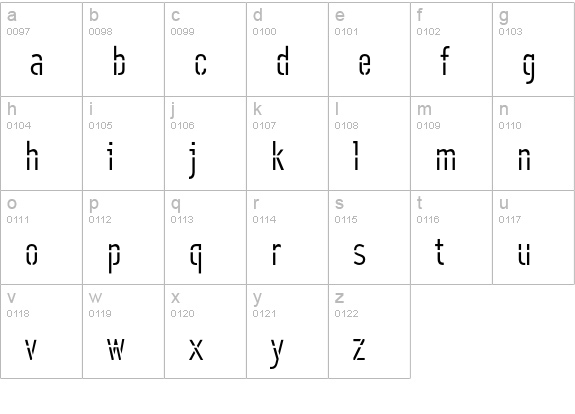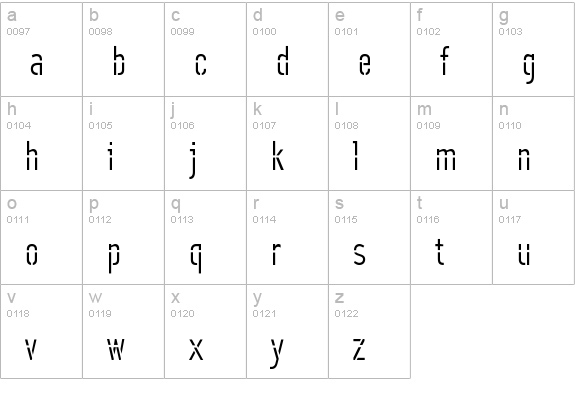
Offline-Light is a refined, elegant variant in the Offline typeface family \xE2\x80\x94 well suited to elegant body text, refined sub-headings, and luxury branding.
Offline-Light is a modern and stylish font that exudes sophistication and elegance. With its clean lines and sleek design, this font is perfect for a wide range of design projects, from branding to marketing materials. The light weight of the font adds a touch of delicacy and refinement, making it ideal for creating a polished and professional look. The best part? Offline-Light is completely free to download at FontsMarket.com! This means you can easily access this stunning font and use it in your projects without any cost. Whether you're a graphic designer, a business owner, or a creative individual looking to elevate your designs, Offline-Light is a versatile and high-quality font that will take your work to the next level. Don't miss out on this amazing opportunity to enhance your projects with the beauty of Offline-Light!